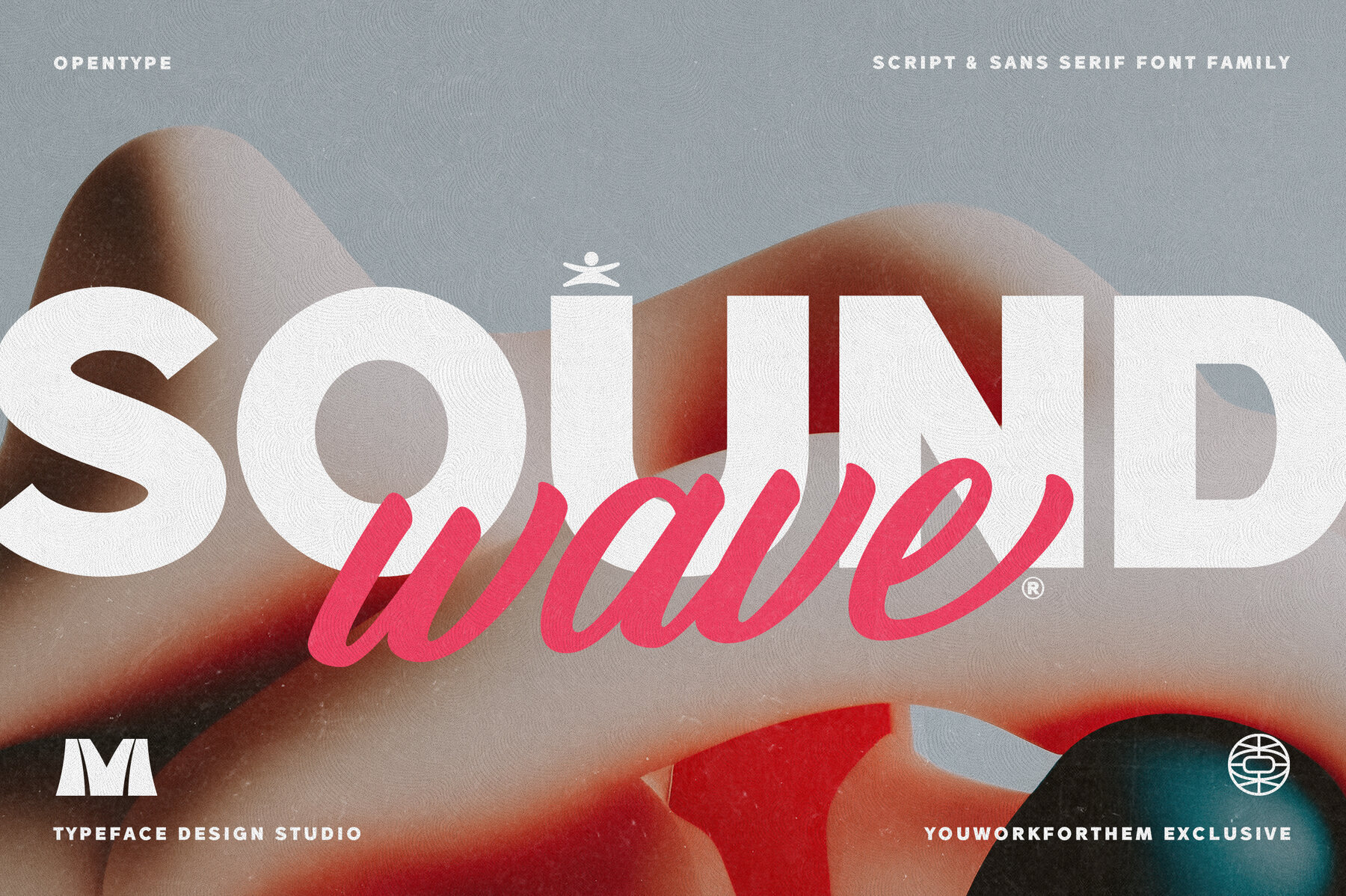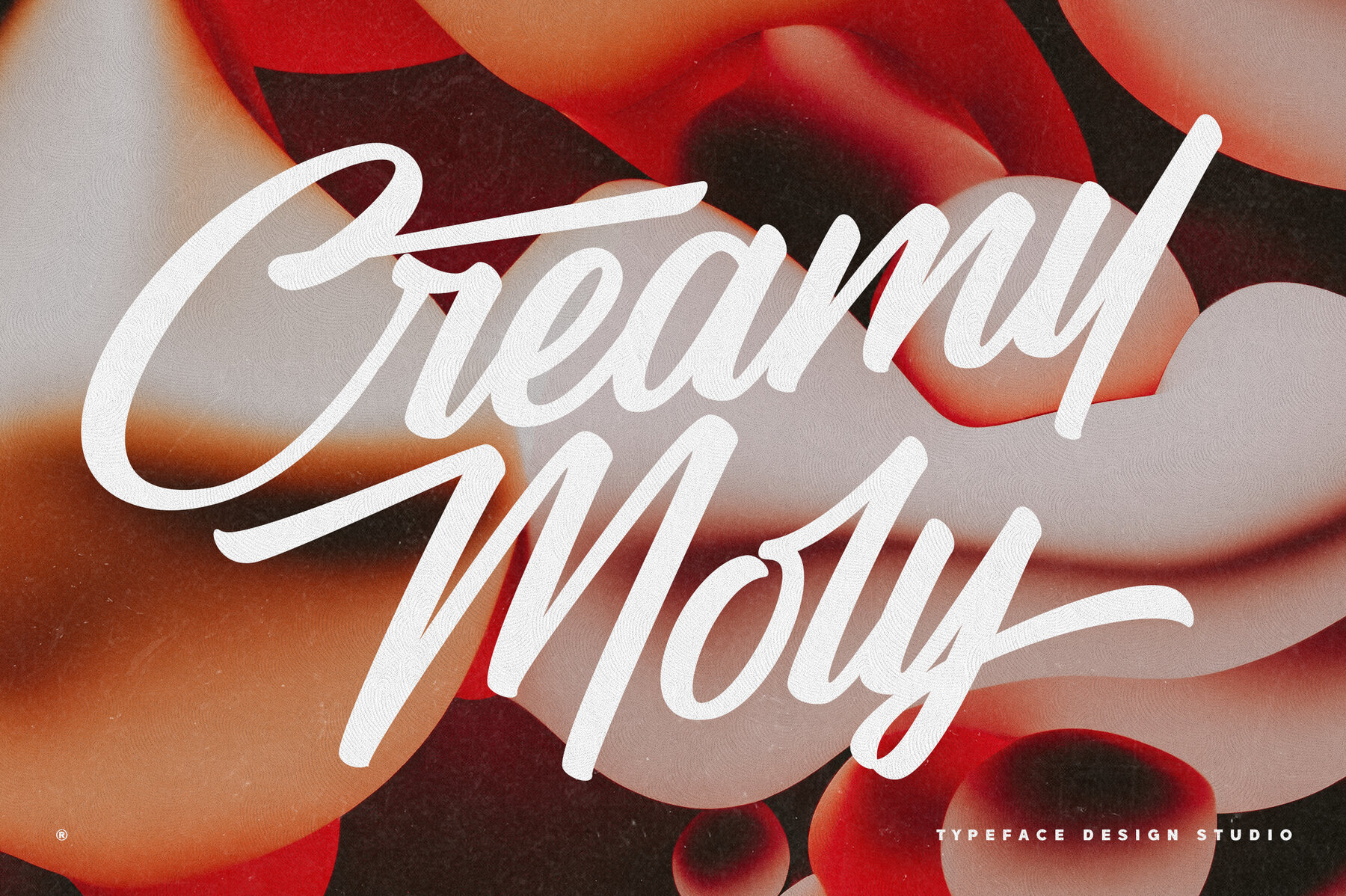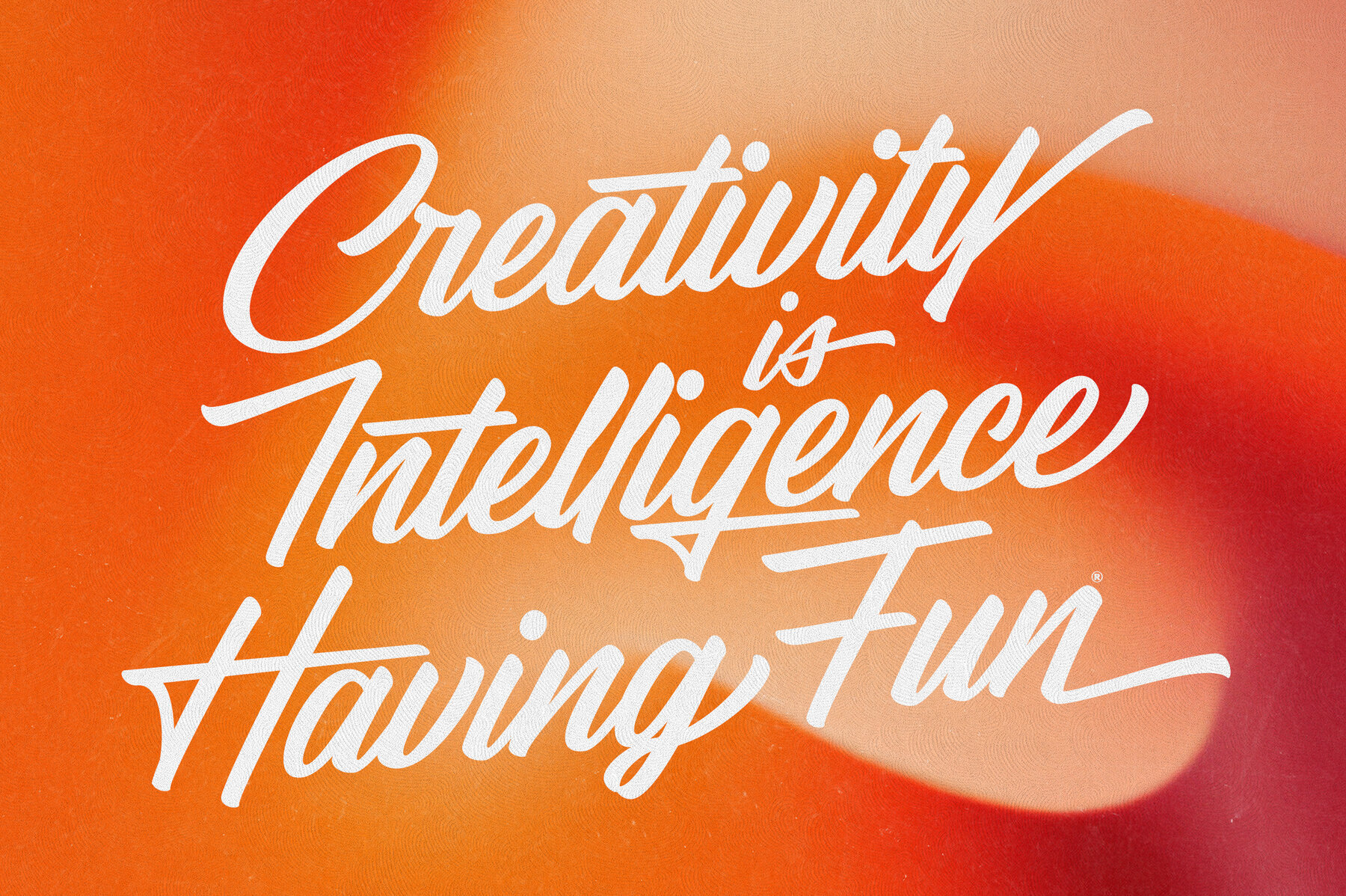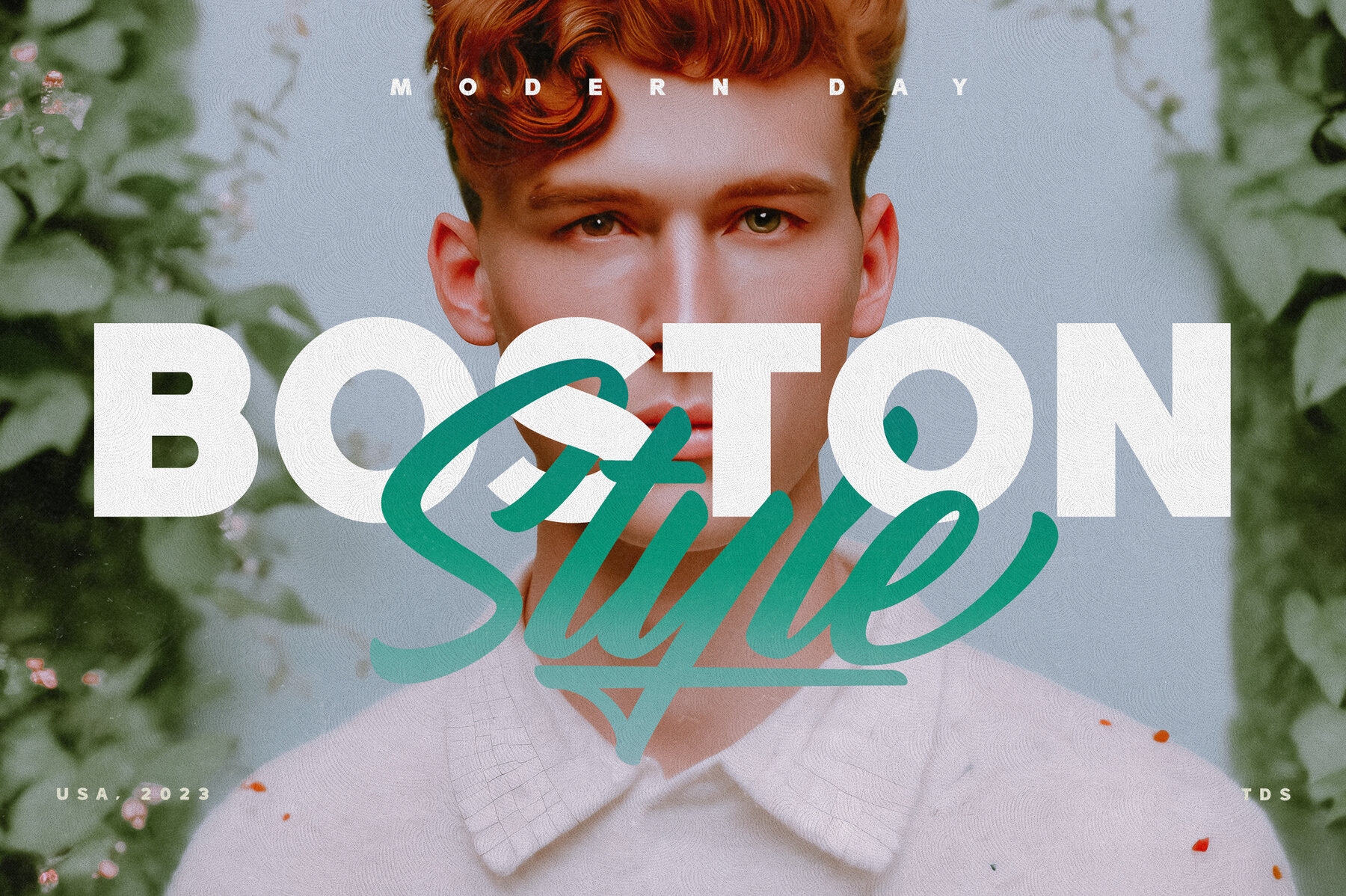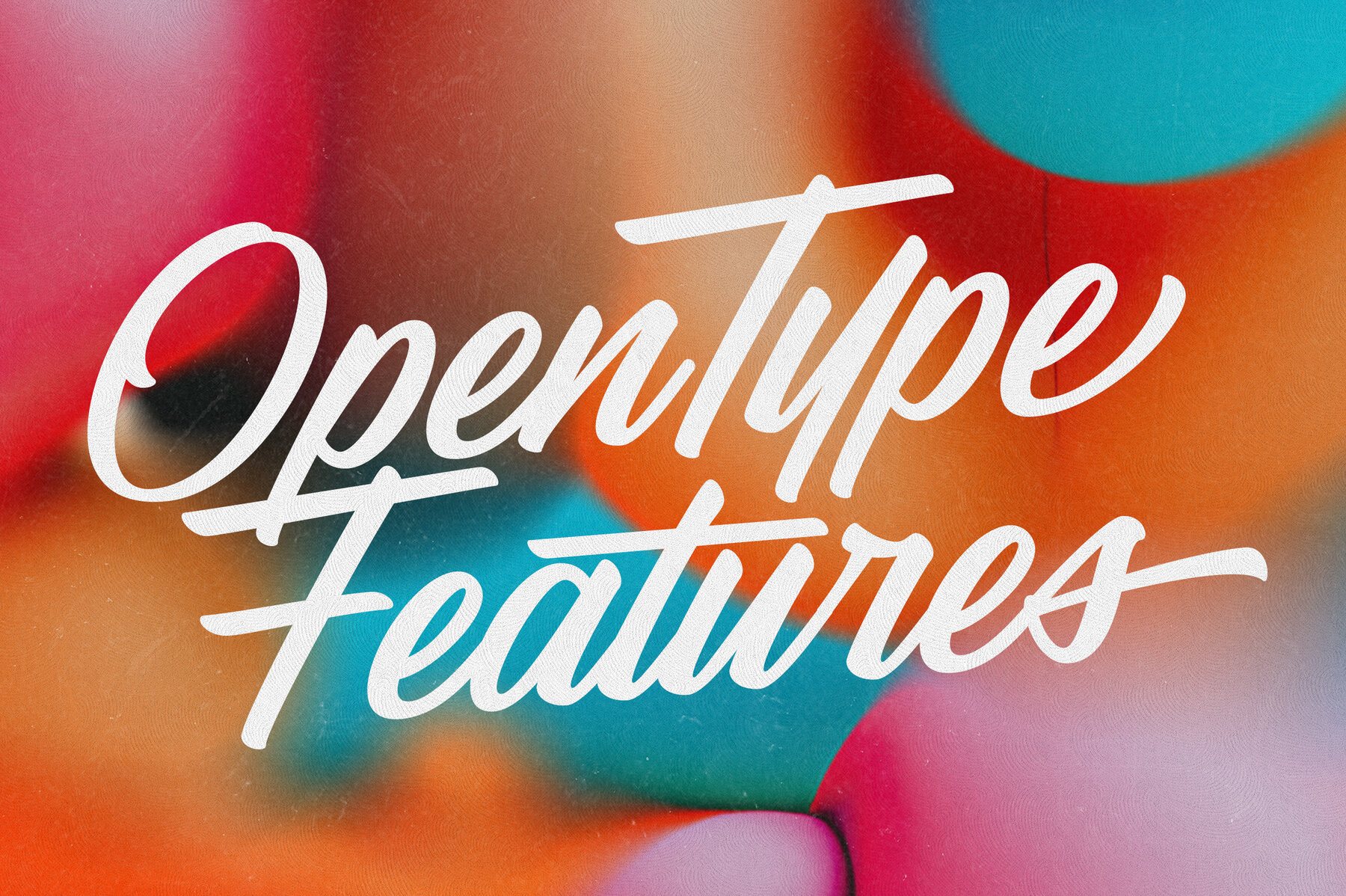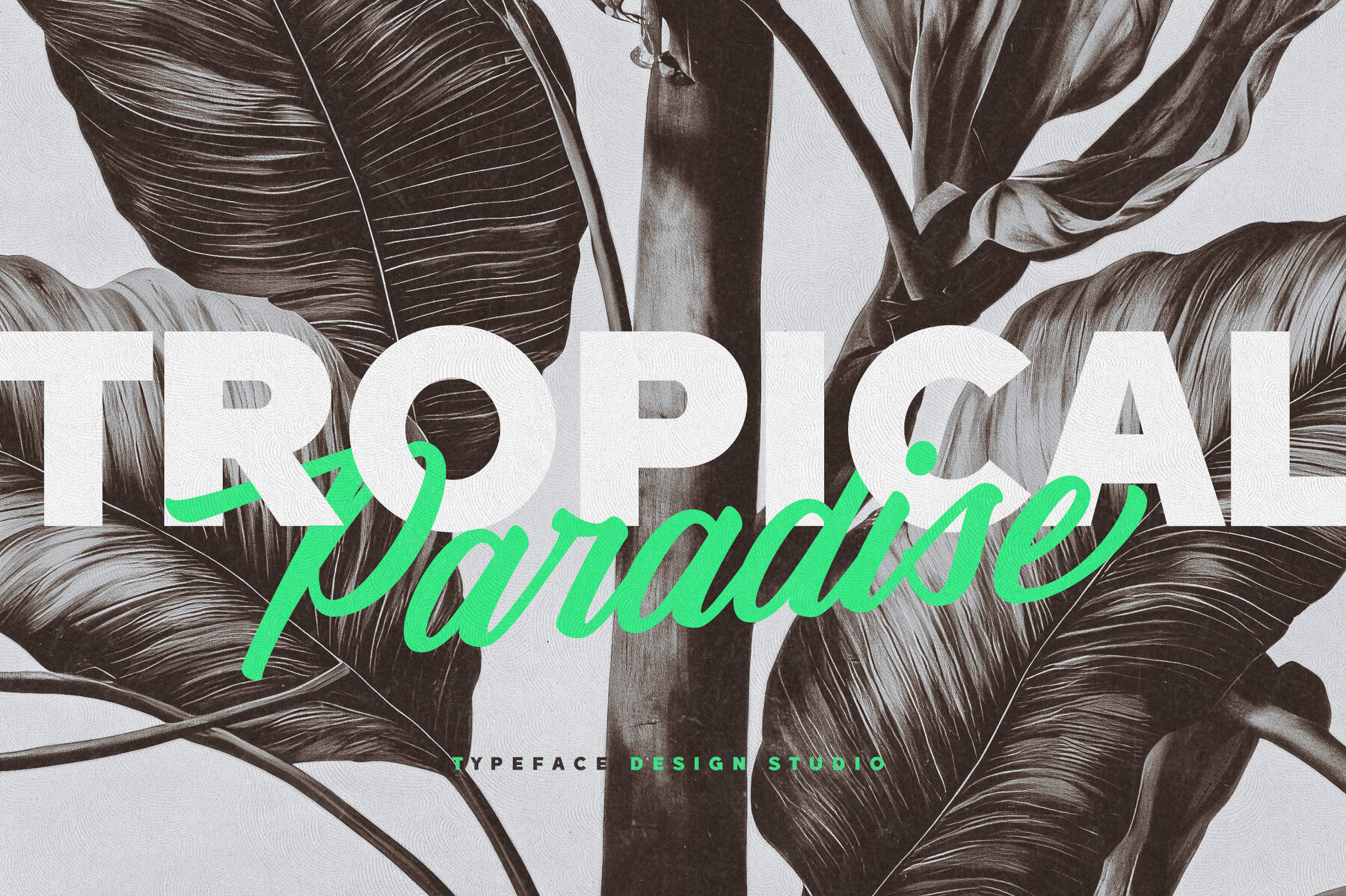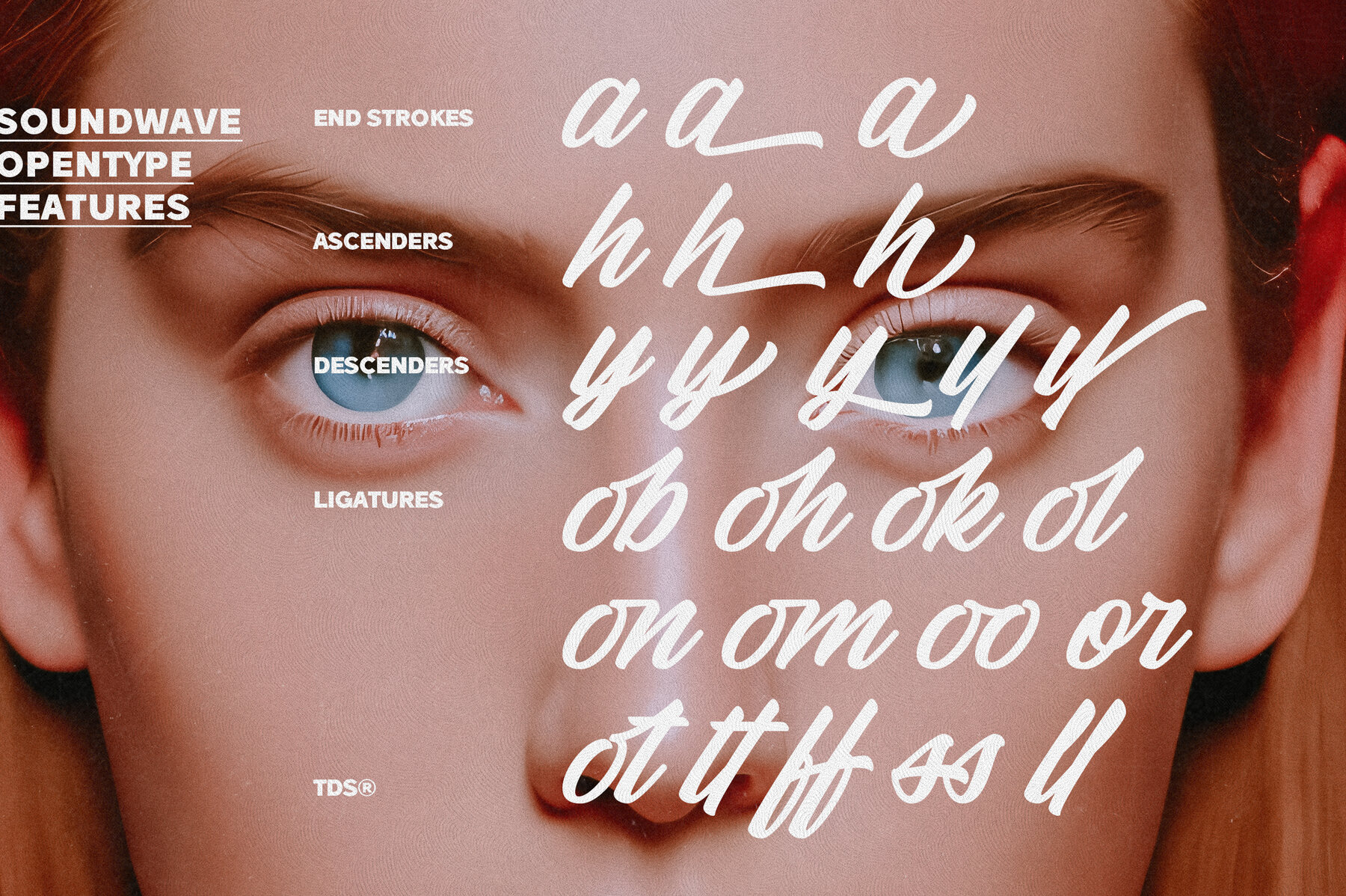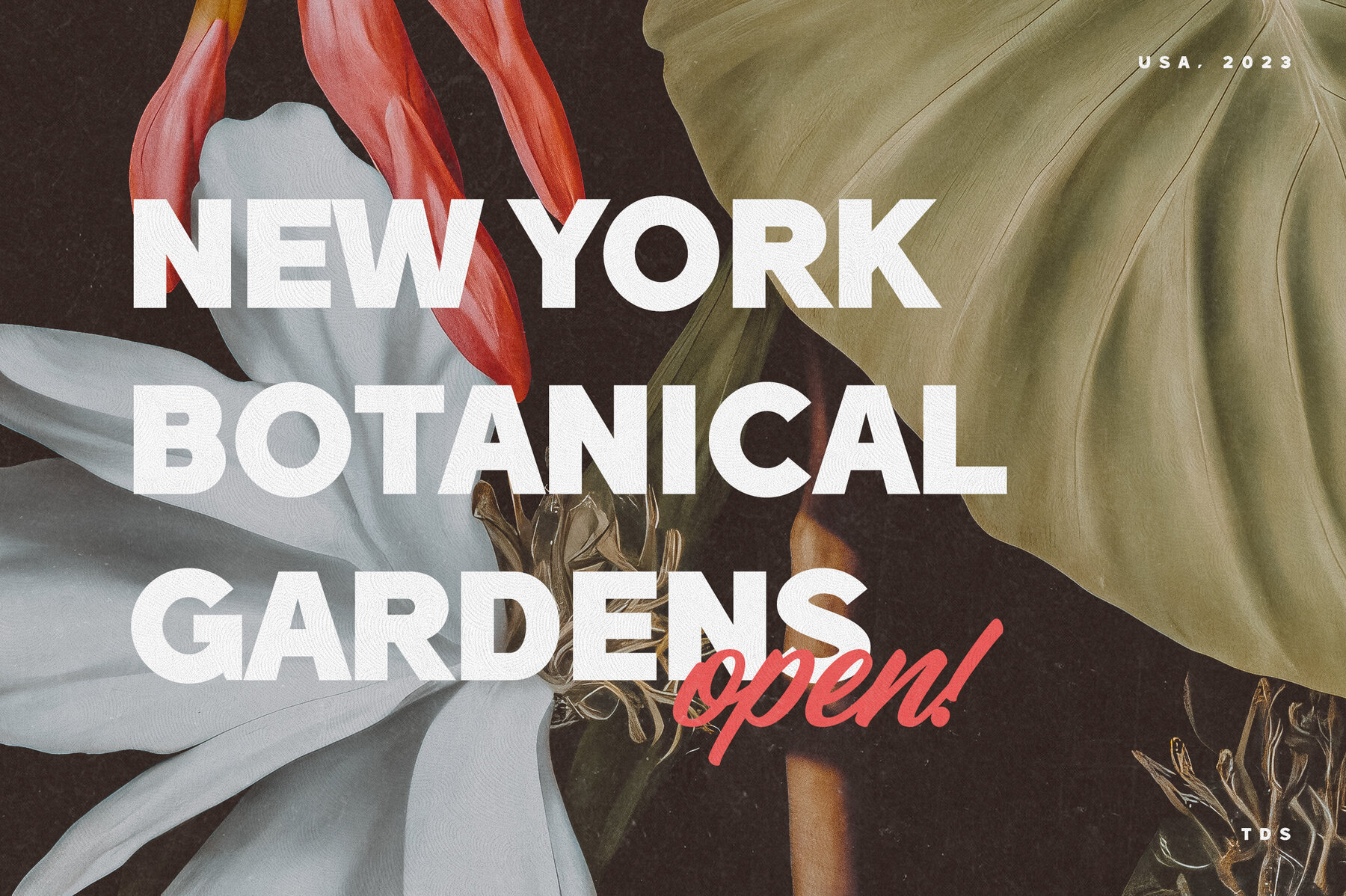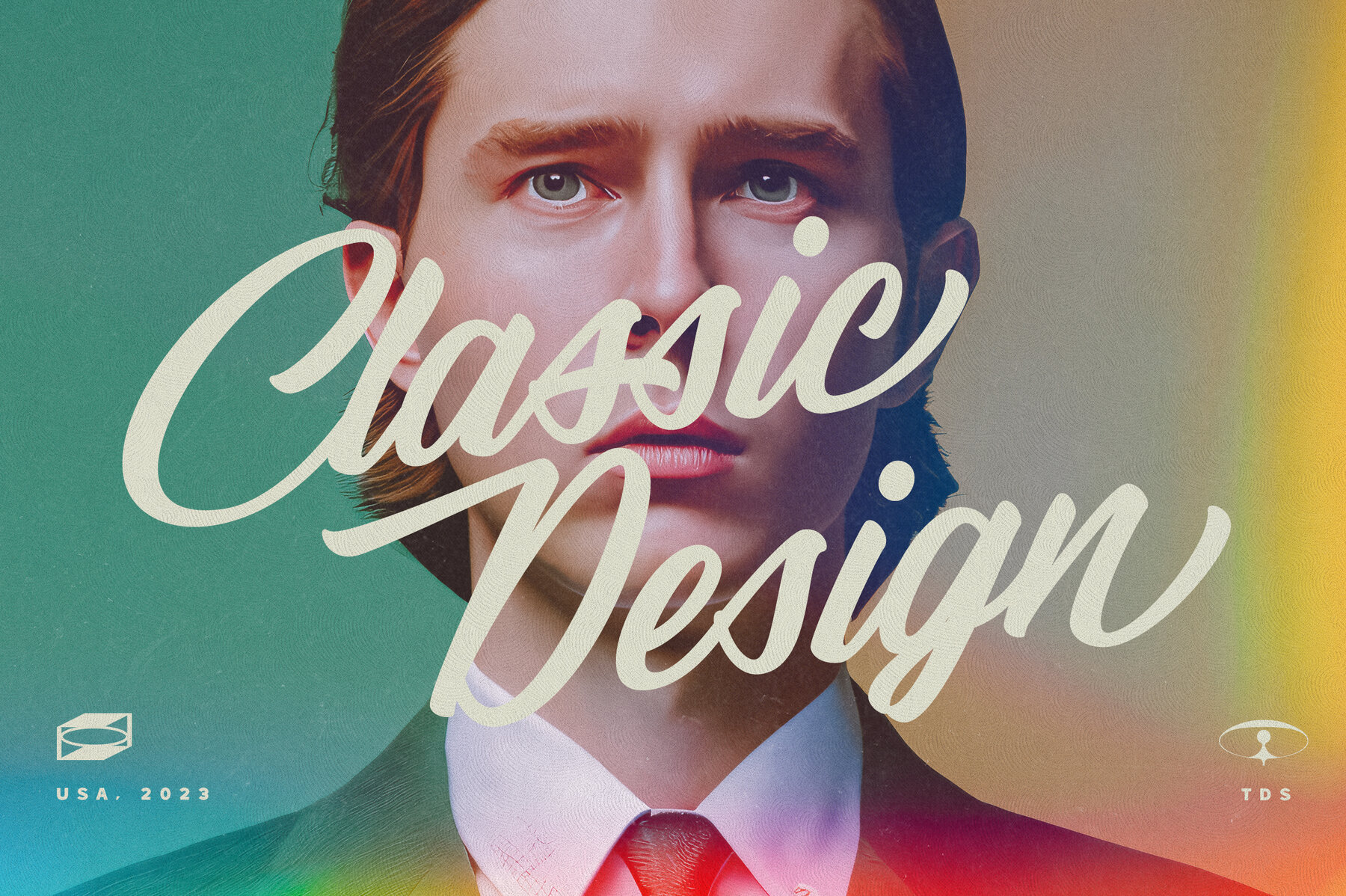
Soundwave Font
Soundwave Sans
Soundwave Script
Soundwave offers a dynamic pair of fonts perfect for graphic designers and marketing agencies aiming to create memorable visual identities. From luxurious beachside boutiques to influencer logos, Soundwave ensures your work is always distinguished and stylish. The thoughtfully crafted design combines clean simplicity with retro flair. A sans-serif style delivers boldness, while the script style, featuring swashes and alternate glyphs, infuses creativity. This versatile duo fits any project and remains accessible in pricing, making it a valuable addition to any designer's toolkit. Embrace Soundwave to infuse your projects with impact and personality, capturing the essence of beach style with sophistication.Soundwave Font Duo: Impactful and Versatile